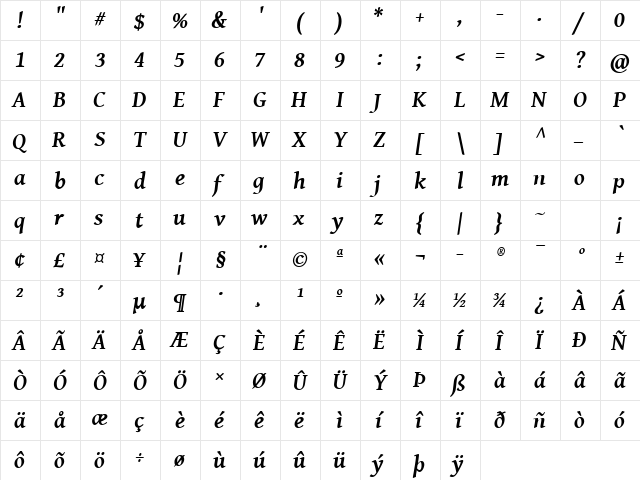
Gentium Basic Bold Italic
| Foundry | SIL International |
| Designer | J. Victor Gaultney and Annie Olsen |
Design Context for Gentium Basic Typeface
Gentium Basic takes a measured approach to typography — its balanced proportions and neutral character make it a reliable workhorse for both digital and print work. The dynamic lean of this cut emphasises speed and emphasis in any layout. Its bold stroke weight gives it real presence on the page.